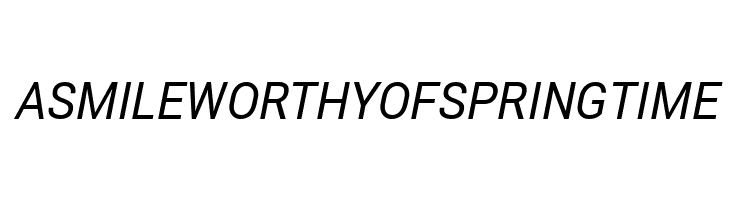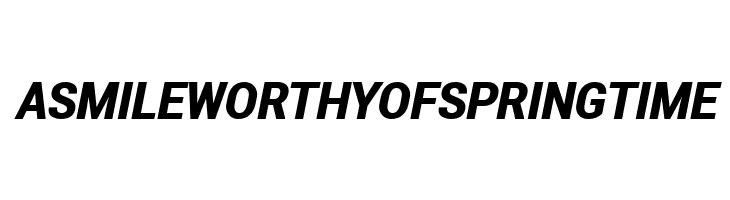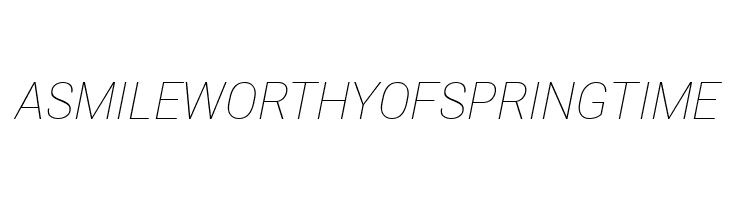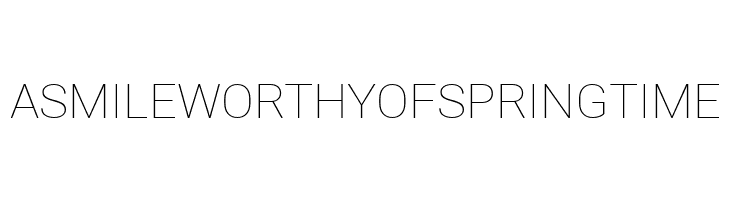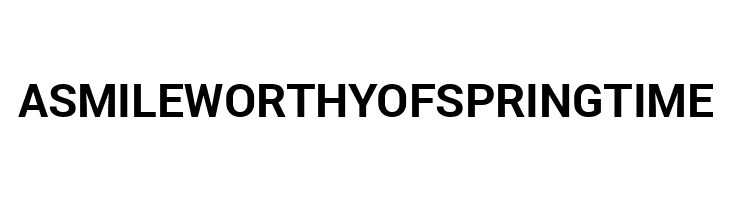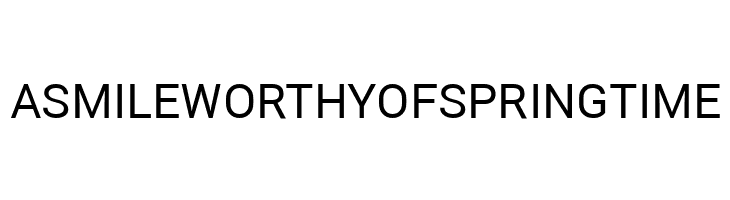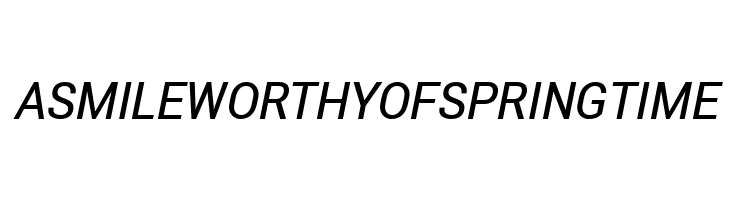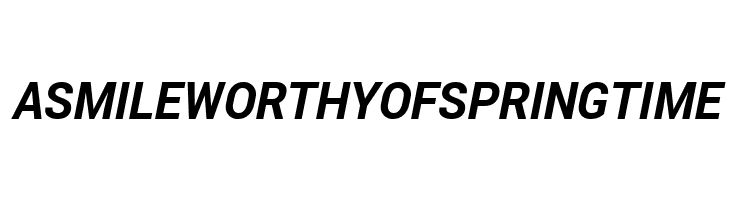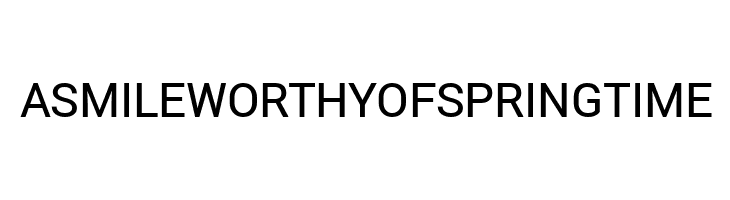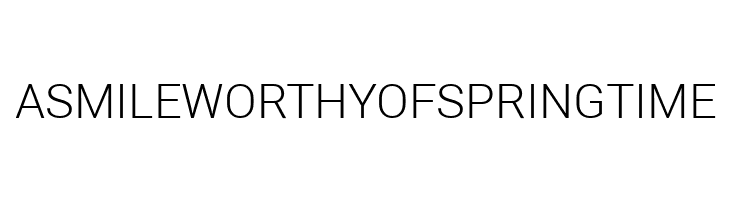
A bold, modern sans-serif font with geometric influences and uniform stroke weight.
A bold, modern sans-serif font with strong geometric shapes.
A bold, italic sans-serif font with a modern and dynamic style.
A modern sans-serif italic font with clean lines and a professional appearance.
A clean, modern sans-serif font with a light weight and rounded edges.
A sleek, modern sans-serif font with a light, italic style.
A modern, geometric sans-serif typeface with clean lines and balanced proportions.
A modern, medium-weight sans-serif font with an italic style, offering clarity and elegance.
A modern, thin sans-serif font with clean lines and balanced proportions.
A modern, thin, and italic sans-serif font with a clean and minimalist design.
A bold, modern sans-serif typeface with strong geometric shapes and high legibility.